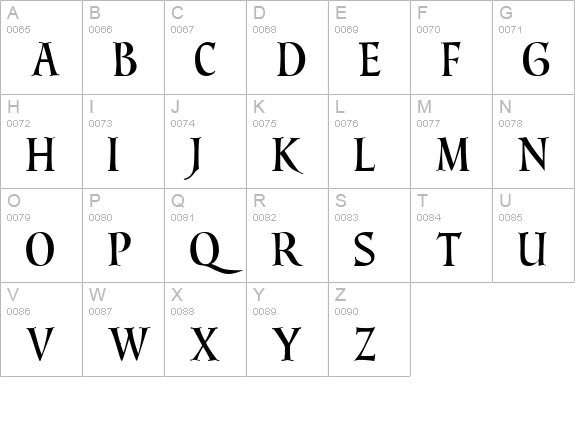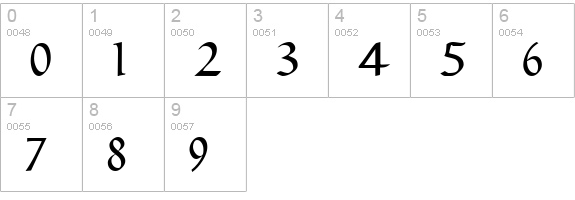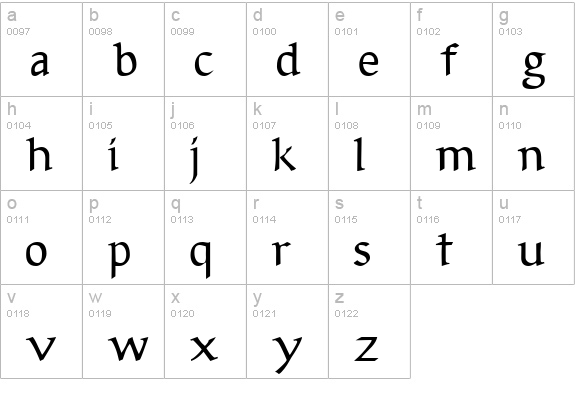
Sirona Font Details
Sirona font is a stunning display typeface that exudes elegance and sophistication. With its unique blend of classical and modern elements, this font is perfect for adding a touch of refinement to any project. The graceful curves and intricate details of Sirona create a sense of timeless beauty, making it a versatile choice for both digital and print designs. But what makes Sirona font truly special is that it is available for free! Yes, you read that right. This exquisite font can be downloaded at absolutely no cost from FontsMarket.com, a trusted source for high-quality fonts. Whether you're a professional designer or simply a typography enthusiast, having access to such a beautiful typeface without breaking the bank is truly a gift. Sirona font's versatility is evident in its wide range of weights and styles. From a delicate and refined Thin version to a bold and impactful Black version, there is a variation of Sirona to suit every design need. This font is also equipped with a full set of uppercase and lowercase letters, as well as numerals and punctuation marks, ensuring that you have all the tools you need to create stunning compositions. Whether you're designing a logo, a wedding invitation, a poster, or any other creative project, Sirona font will elevate your work to new heights. Its regal and sophisticated appearance will captivate viewers and leave a lasting impression. So why wait? Head over to FontsMarket.com and download Sirona font for free today. Unleash your creativity and let this exquisite typeface bring your designs to life.